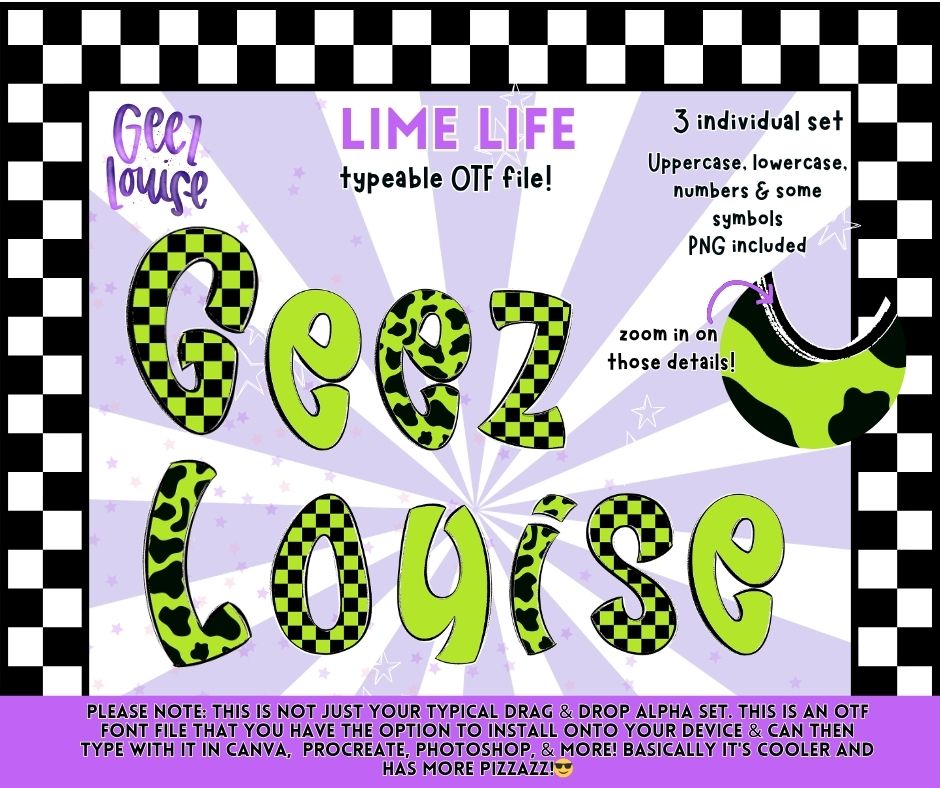
Lime Life OTF Font | Neon Green Checkerboard & Leopard Alpha | Typeable Font + PNG Set | Retro Bubble Letters
Warning: this one came to cause problems… in a cute way 😏🔥
Bright. Bold. Slightly unhinged (in a good way) 💚🔥
“Lime Life” is that neon pop your designs didn’t know they needed. This alpha set turned typeable OTF font blends checkerboard + leopard prints with a punchy lime green that refuses to sit quietly.
It’s loud, it’s fun, and it’s built for designs that stand OUT.
✔️ Neon aesthetic = instant attention grabber
✔️ Perfect mix of checkerboard + leopard
Basically… it’s giving highlighter energy with attitude 😎